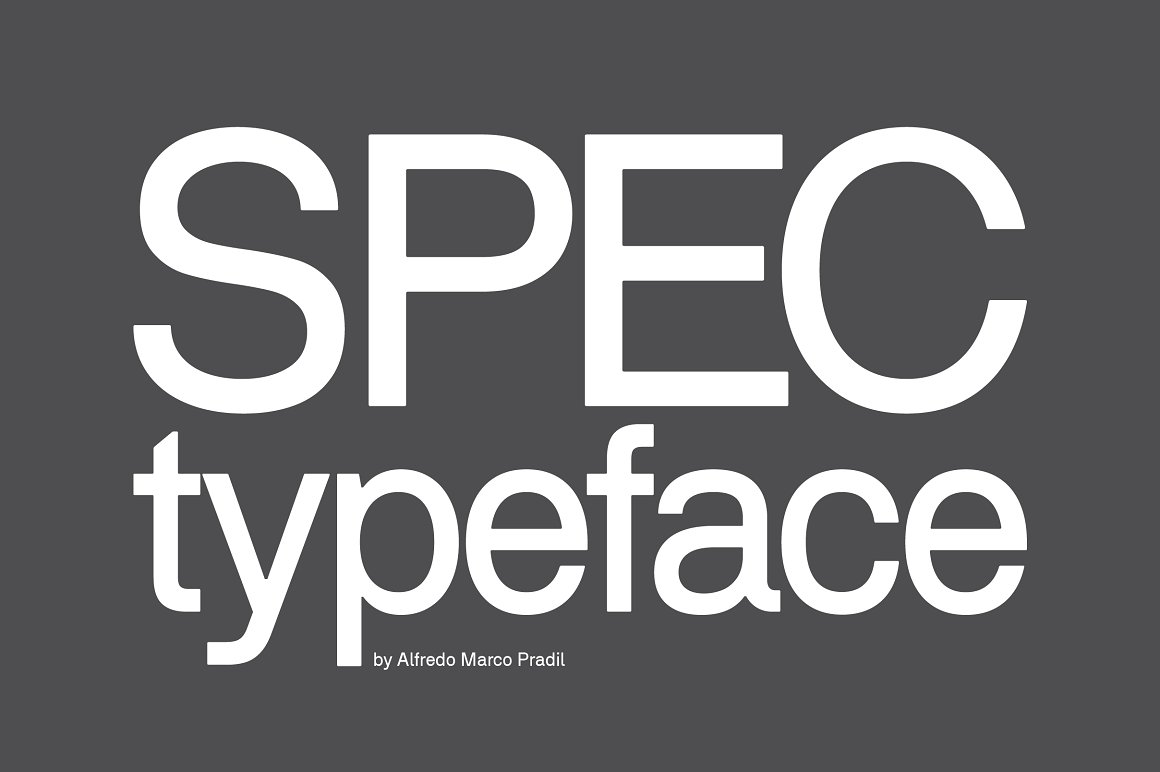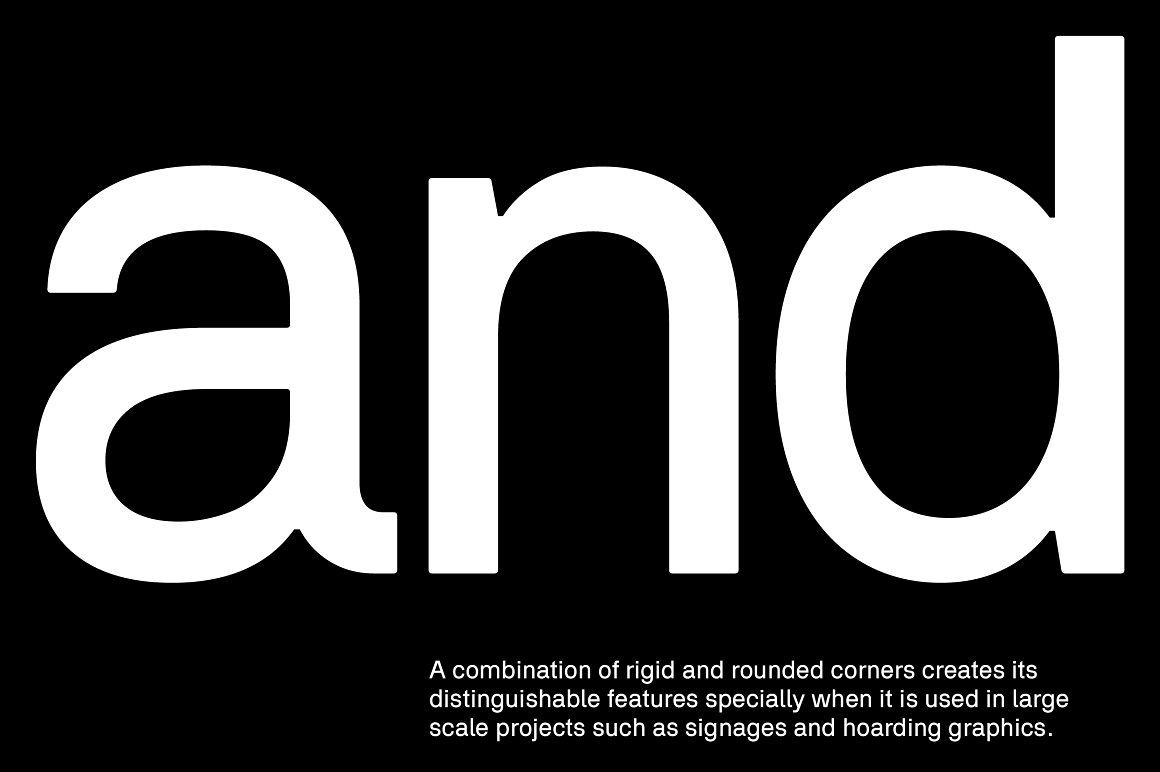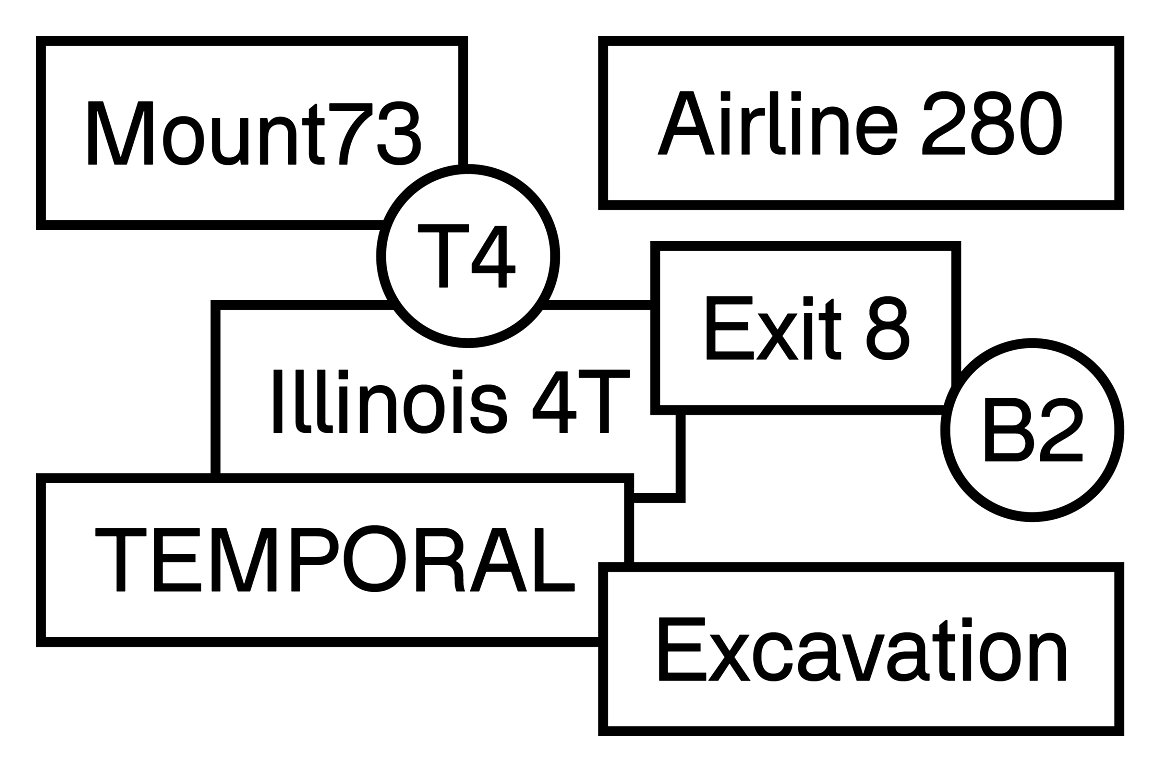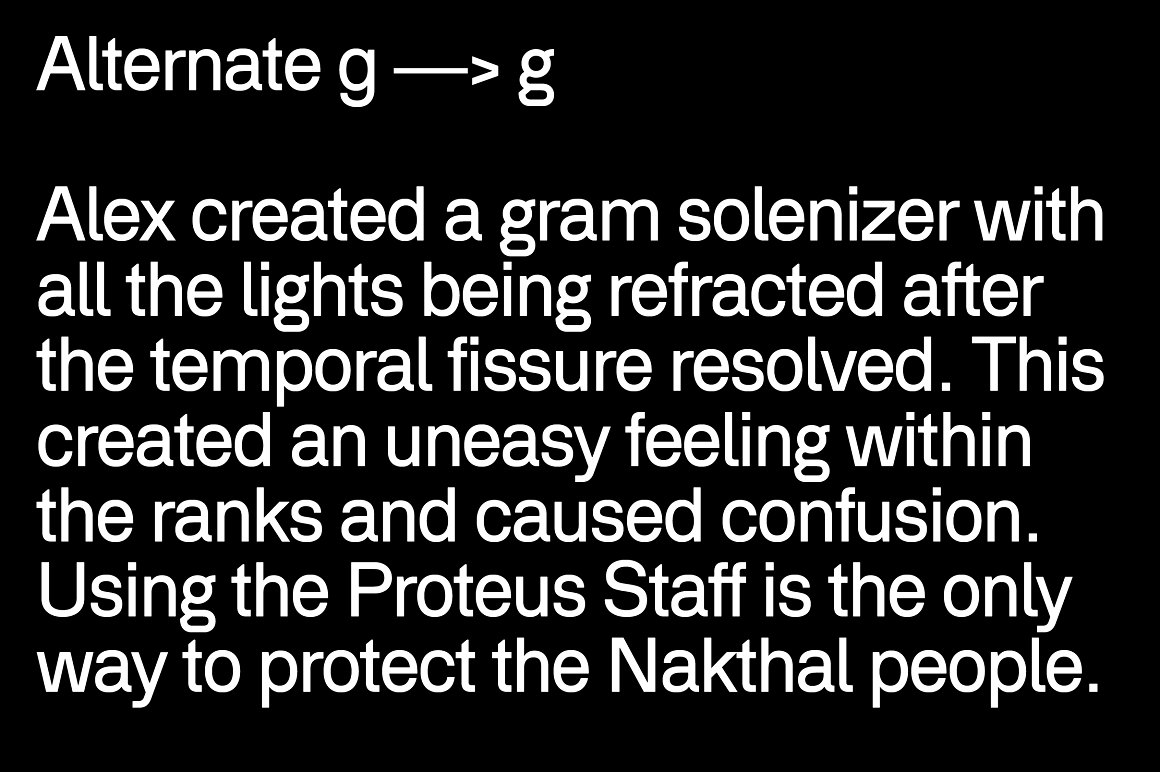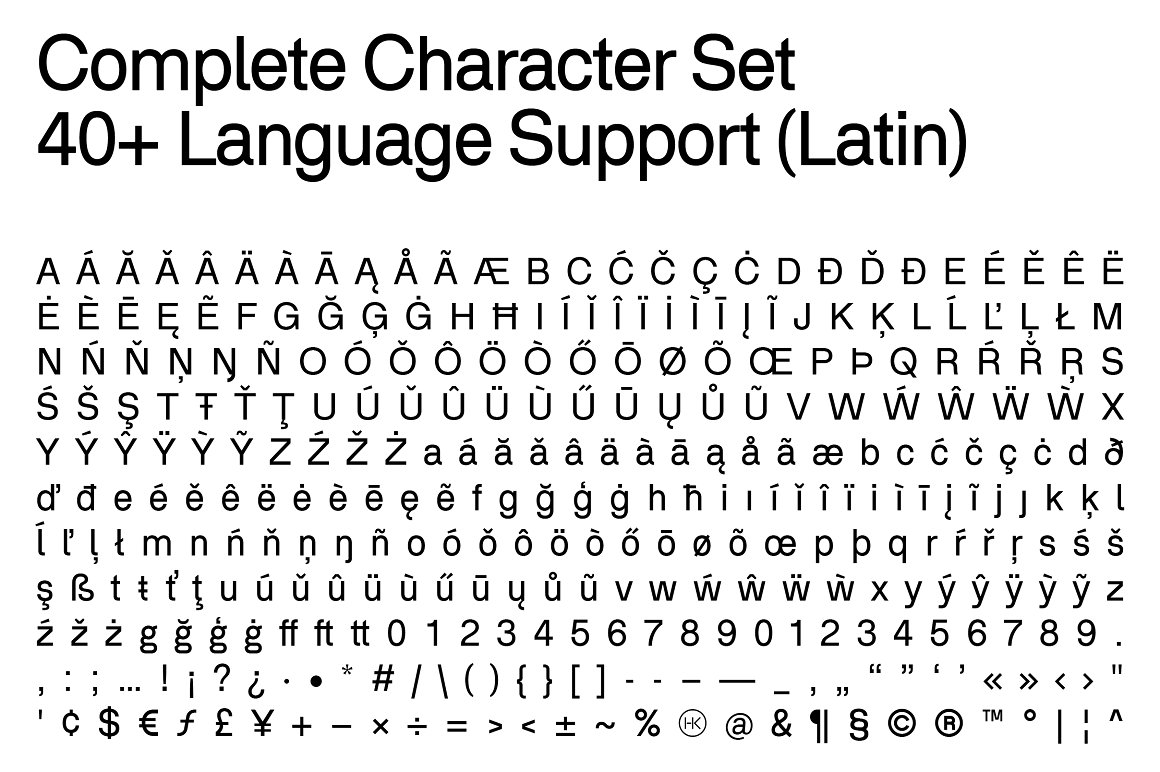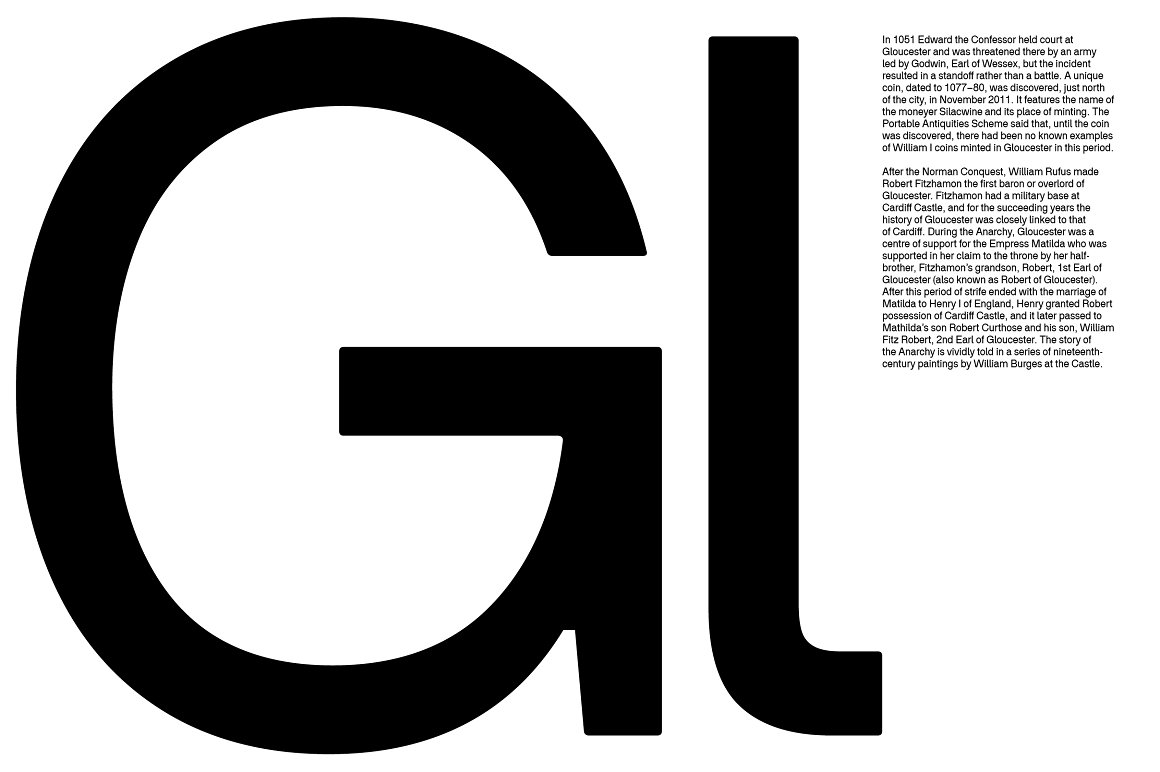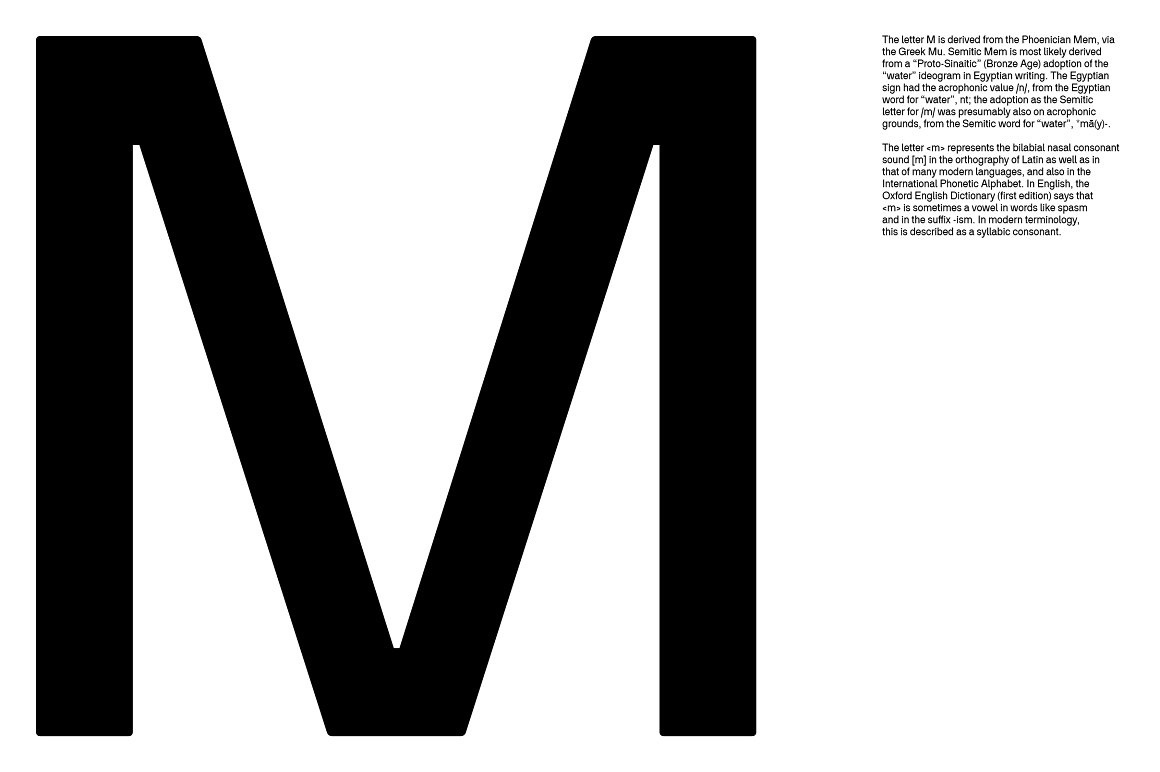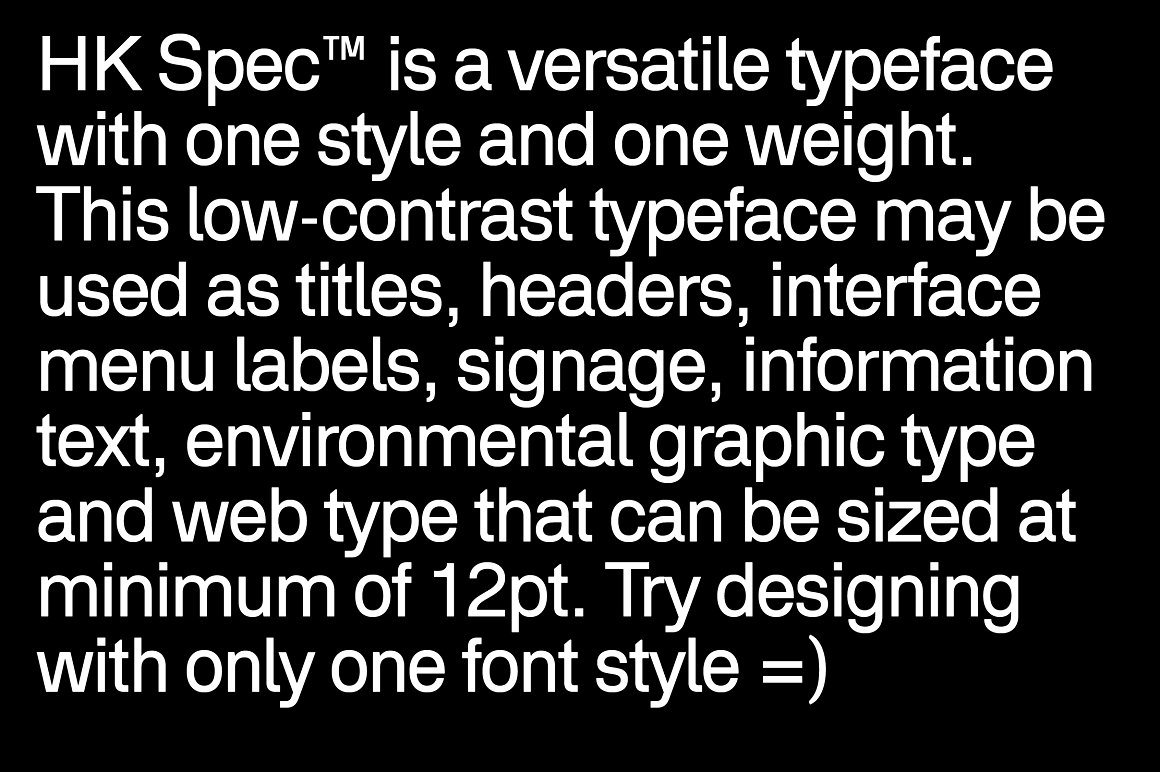
HK Spec™ Typeface
HK Spec™ is a versatile typeface with one weight and one style. This low contrast typeface may be used as titles, headers, interface menu labels, signage, information text, environmental graphics type, and web type that can be sized at a minimum of 12pts. Try designing with only one font style—restricting your options will heighten your creativity and problem solving.